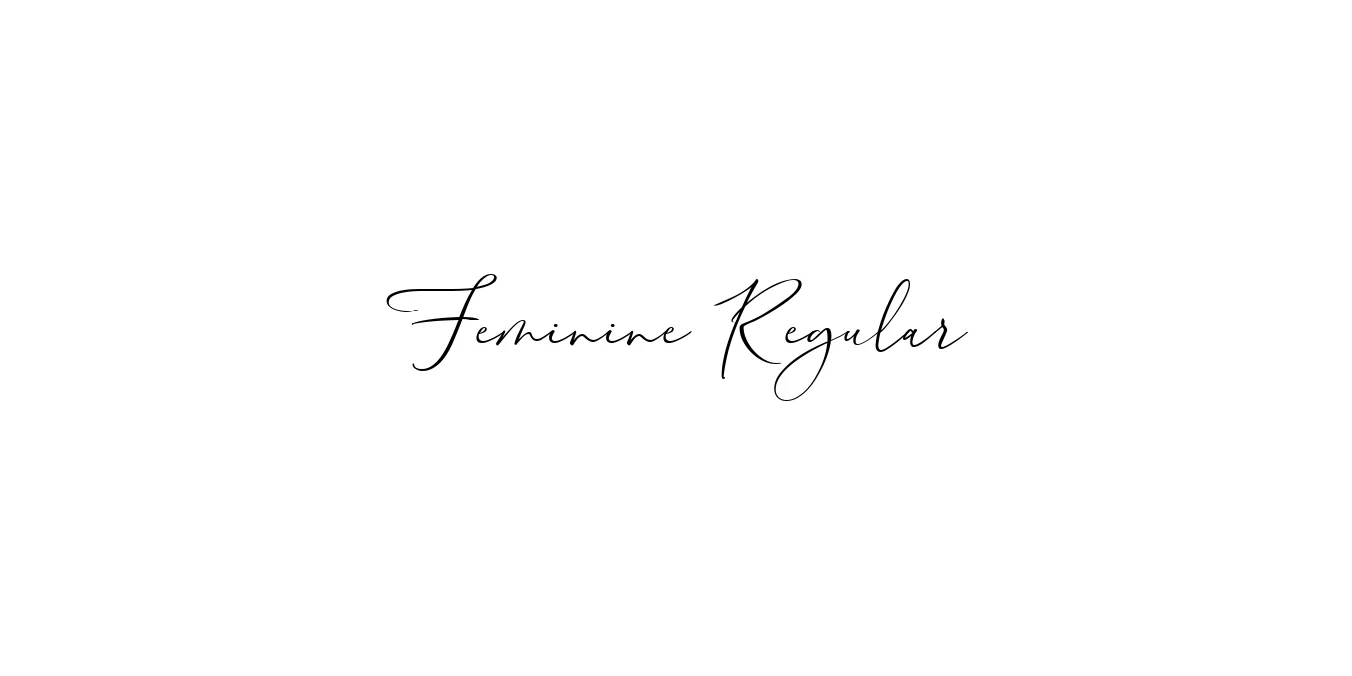
Feminine Regular
Feminine Regular is a sophisticated and fluid script typeface designed to convey elegance and grace. Characterized by its flowing ligatures and delicate curves, the font captures the essence of classic calligraphy while maintaining a modern, clean aesthetic. It was created to fill the need for a typeface that feels both personal and high-end, making it a staple for designers working in luxury markets.
The history of this typeface is rooted in the revival of handwritten aesthetics in digital design. It bridges the gap between traditional penmanship and digital precision, offering a wide range of decorative alternates. Over time, it has become a popular choice for high-profile fashion editorials and boutique branding projects worldwide, thanks to its timeless appeal and legible structure.
Feminine Regular Best Uses
Adds a touch of romantic elegance to formal event stationery.
Perfect for luxury logo designs and high-end retail packaging.
Enhances aesthetic appeal for lifestyle and beauty content.
Provides a personal, handwritten feel to heartfelt messages.